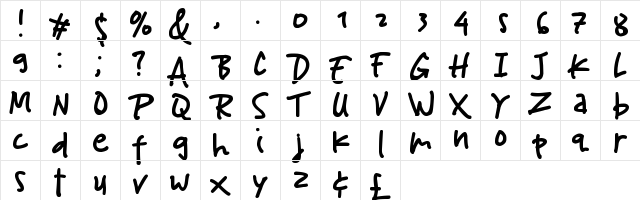
Scribble Child Regular
Design Context for Scribble Child Typeface
Scribble Child trades formality for fun, with bouncy, characterful letterforms that bring warmth and energy to any project.
Font Pairing: Pairs well with a rounded or humanist sans for body copy, maintaining the friendly tone without relying on Scribble Child to carry extended reading.
Pro Tip: Use Scribble Child at larger display sizes where its expressive character can land. Pair with a clean, simple sans for body copy to maintain readability.